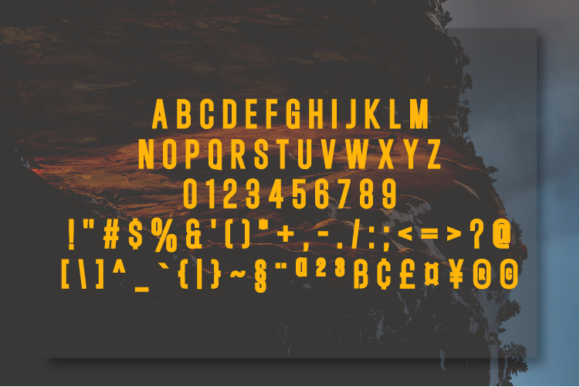
Introduction to Pashalovia Black Font
As designers, we’ve all been there – staring at a blank canvas, waiting for that perfect font to bring our creative project to life. For me, it was the moment when I stumbled upon the Pashalovia Black Font, and suddenly, everything clicked. Its sleek, geometric design and high-quality aesthetic had me hooked. I knew I had found the perfect design resource to elevate my project and make it truly stand out.
The Pashalovia Black Font is more than just a pretty face – it’s a powerful tool that delivers any message with style, clarity, and legibility. With its minimum contrast strokes and closed apertures, it’s perfect for designers who need a font that’s both versatile and easy to read. And the best part? It’s available for free download, making it an invaluable resource for any creative project.
Key Features of Pashalovia Black Font
- High-quality design resource suitable for various creative projects, including graphic design and digital art.
- Designed with a unique aesthetic, this font is perfect for adding a touch of sophistication to creative projects.
Honest Review: Pashalovia Black Font
I recently had the chance to work with the Pashalovia Black Font, and I must say it’s been a game-changer for my creative projects. This font is perfect for anyone looking for a sleek and modern design resource.
What works well: ✨ The Pashalovia Black Font has a high quality and modern design that’s perfect for creating eye-catching headlines and titles. It’s also great for use as a title font in presentations and reports. The transparent background makes it easy to layer over images and graphics, giving you endless possibilities for creative projects.
Overall impression: I’m really impressed with the Pashalovia Black Font, and I’ve already used it in several projects. It’s definitely worth the investment for anyone looking to elevate their design work. If you’re looking for a high quality font to add some sophistication to your creative projects, I would definitely recommend giving it a try.
- Perfect for modern and sleek designs
- Great for headlines and titles
- Easy to layer over images and graphics
- Not suitable for large text projects
How to Use Pashalovia Black Font
To get the most out of the Pashalovia Black Font, use it with a transparent background to create a high-quality design. This font is ideal for creative projects where you want to add a touch of elegance and sophistication.
The Pashalovia Black Font is commonly used in logo design, branding, and packaging design. It’s also a great choice for creating invitations, business cards, and other print materials.